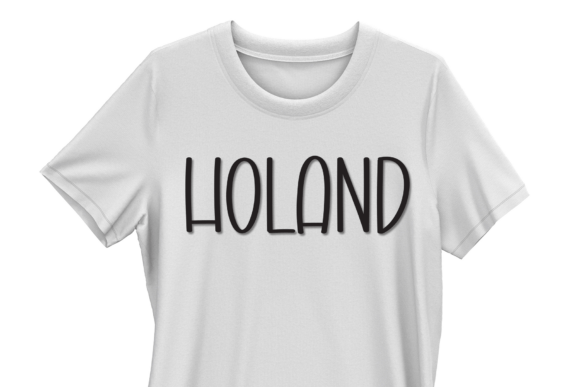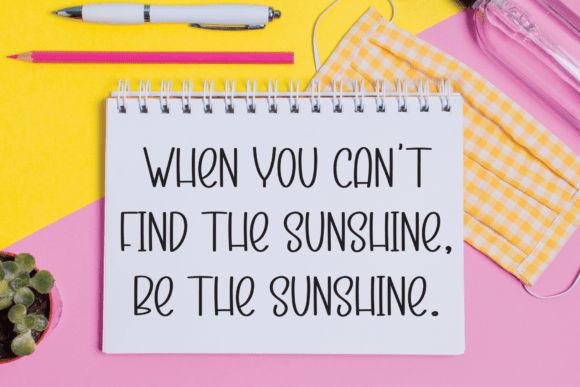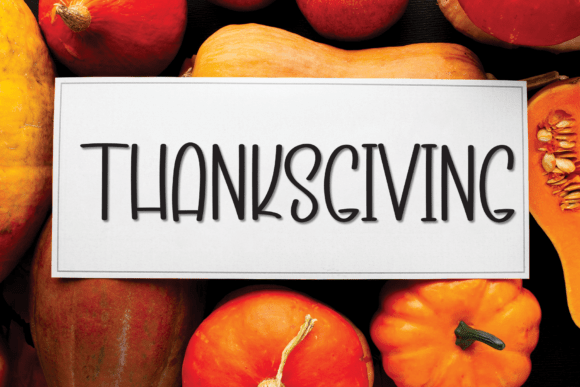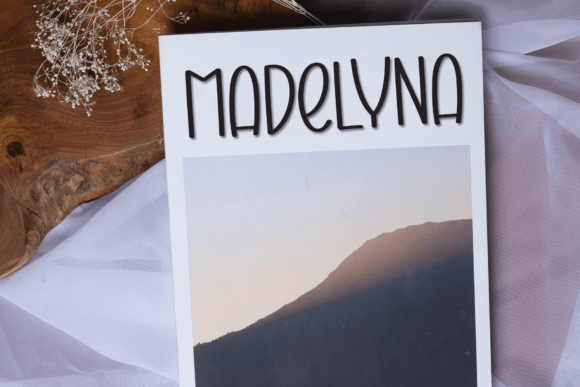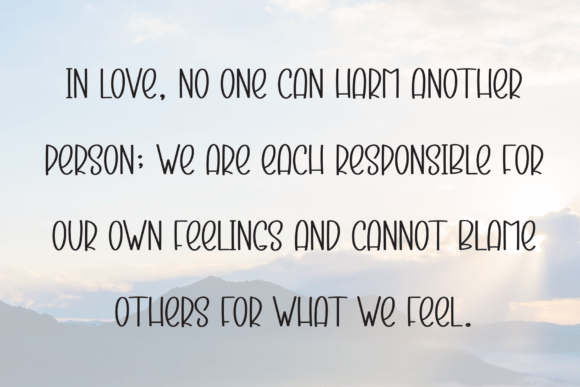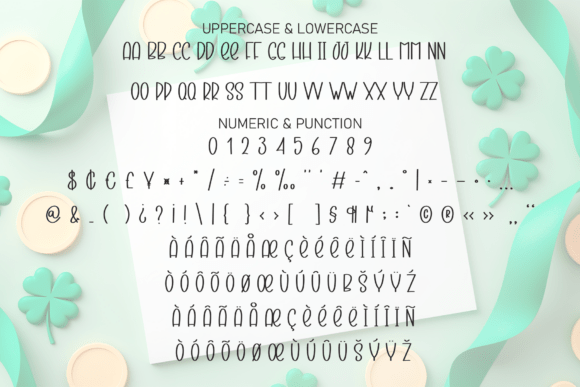
Introduction to Simple Lucky Font
Have you ever been in the middle of a creative project, staring at a blank screen, trying to find the perfect font to bring your idea to life? That’s where the Simple Lucky Font comes in – a game-changer for designers looking to add a touch of modern flair to their work.
With its clean lines and friendly letterforms, this neat and casual display font is perfect for headlines, posters, packaging, and branding that aims to feel modern yet laid-back. Whether you’re working on a high-quality design project or just need a reliable design resource, the Simple Lucky Font is an excellent choice.
Key Features of Simple Lucky Font
- Includes a single font style with multiple weights and sizes to cater to various design needs.
- Available in 8 different font sizes, ranging from 12 to 48 points, ideal for headings and body text.
- Unique characteristics: Custom-designed for a modern and minimalist aesthetic, featuring clean lines and simple shapes.
Honest Review: Simple Lucky Font
As a designer, I’m always on the lookout for high-quality design resources that can elevate my creative projects. The Simple Lucky Font has been a pleasant surprise, and I’m excited to share my honest review with you.
What works well: ✨ The Simple Lucky Font is incredibly versatile, with a range of styles and weights that make it perfect for a variety of design projects. The font is also remarkably easy to use, even for beginners, and the transparent background makes it a breeze to customize. I’ve found it to be a great resource for logos, branding materials, and even digital signage.
What doesn’t work well: ⚠️ While the font is free to download, the number of styles and weights is limited compared to other premium fonts on the market. Additionally, the font doesn’t include any special characters or international support, which can be a limitation for designers working on projects with global reach.
Overall, I’m thoroughly impressed with the Simple Lucky Font. It’s a great addition to any designer’s toolkit, and its high quality and ease of use make it a solid choice for a wide range of creative projects.
- High-quality and versatile
- Easy to use
How to Use Simple Lucky Font
Tips for Getting the Most Out of Simple Lucky Font
For optimal results, use the Simple Lucky Font on a light background to make the text stand out.
Experiment with different font sizes and styles to create visually appealing designs.
The Simple Lucky Font is ideal for:
Business cards and logos
Infographics and presentations
Marketing materials and social media posts
Alternatives to Simple Lucky Font
When to use: Great Vibes is suitable for projects that require a touch of elegance and sophistication, such as wedding invitations or luxury brand logos.
Comparison to Simple Lucky Font: Great Vibes has a more refined and polished look compared to Simple Lucky Font, making it a better choice for high-end designs.
Alex Brush is a beautiful script font designed for use in creative projects, such as book covers, magazine layouts, and website headers. It features a high-quality design with a transparent background, making it ideal for graphic designers looking for a free download.